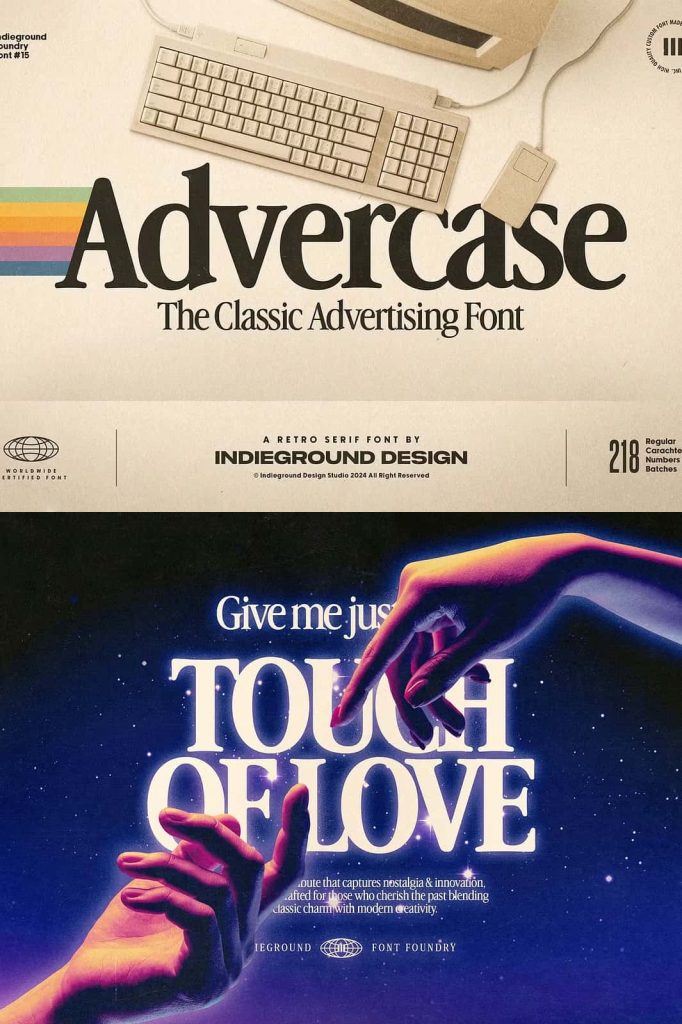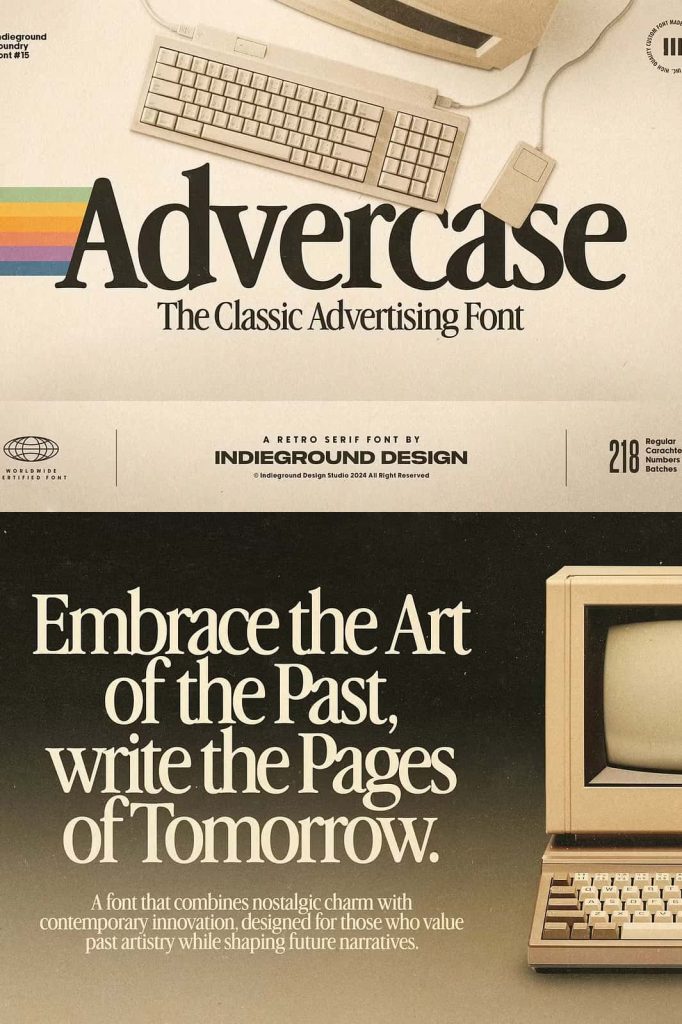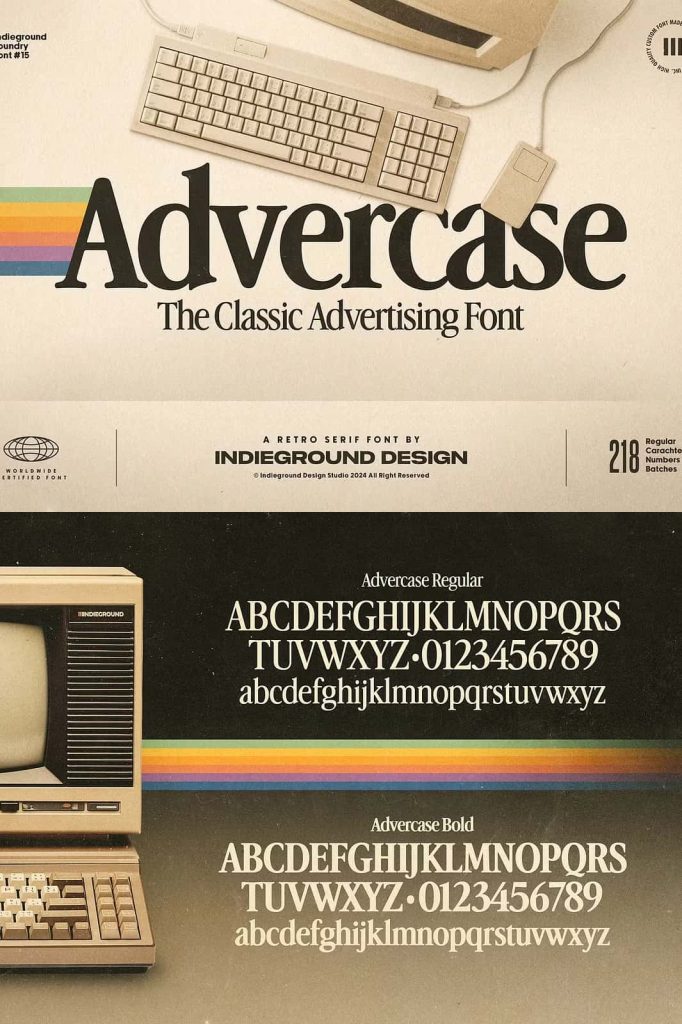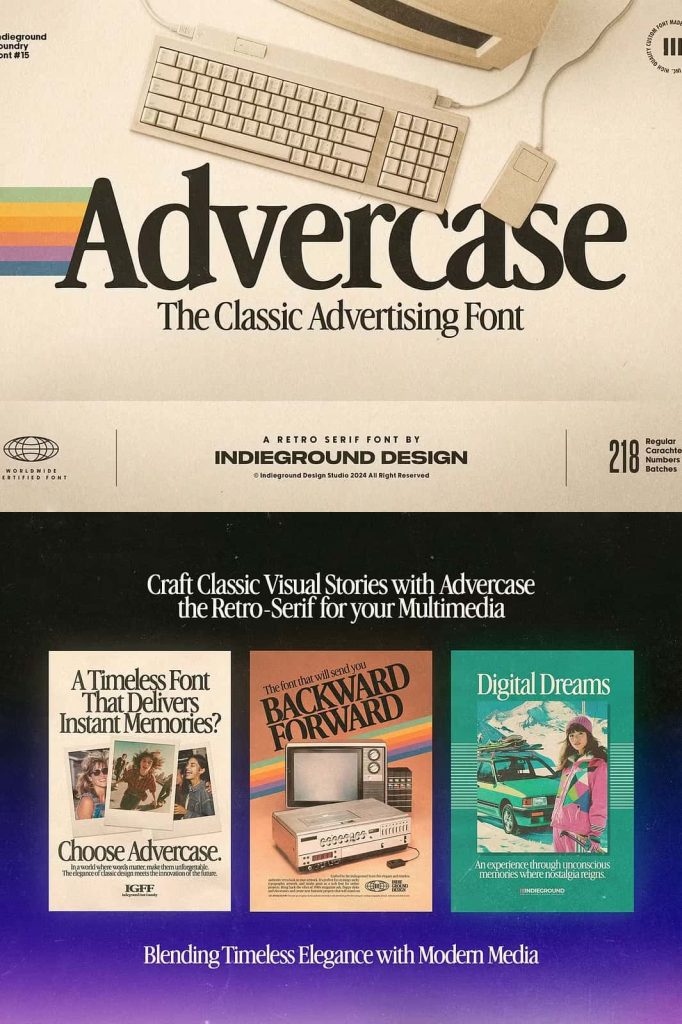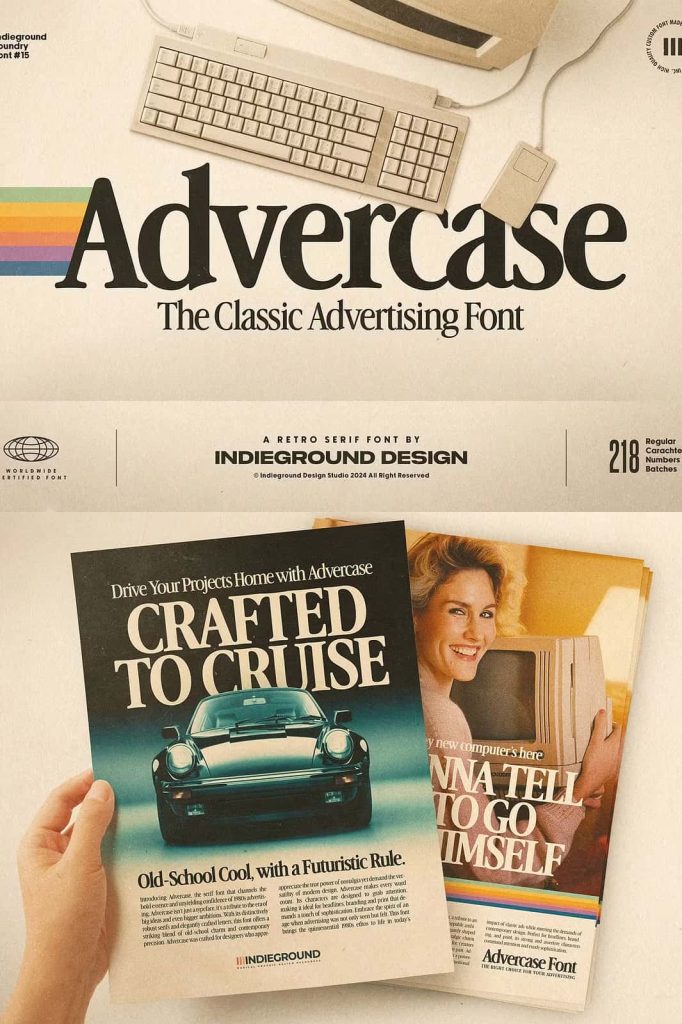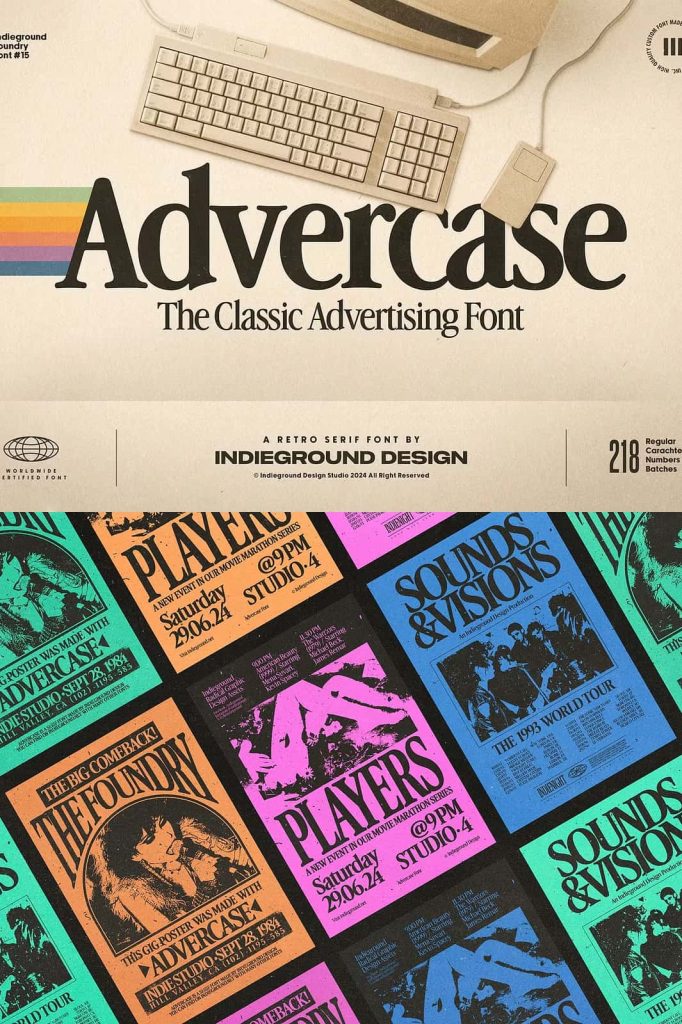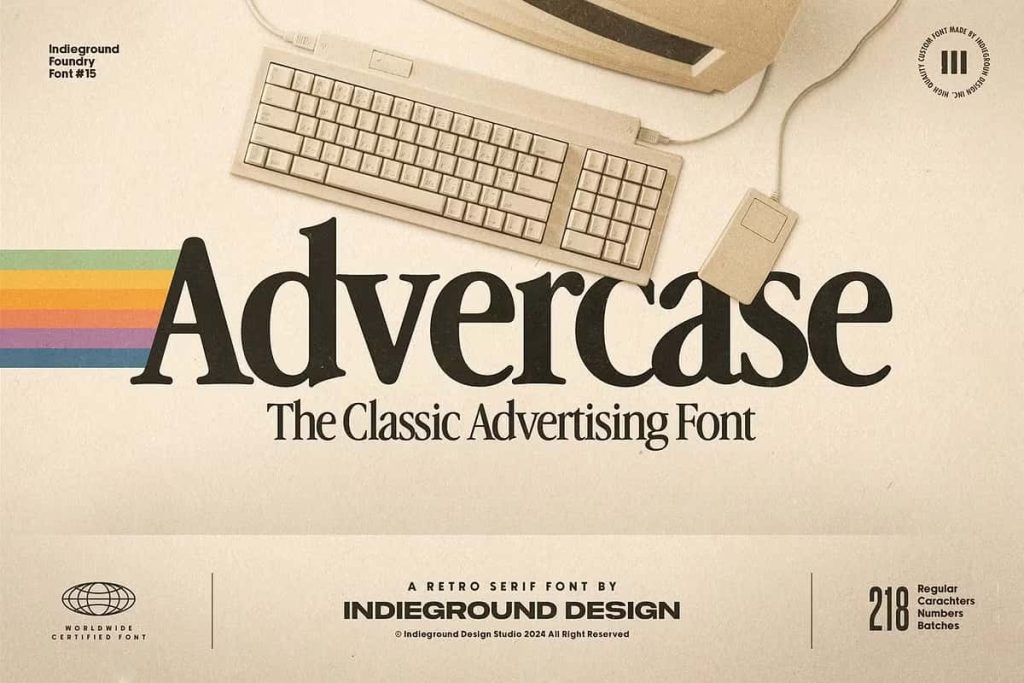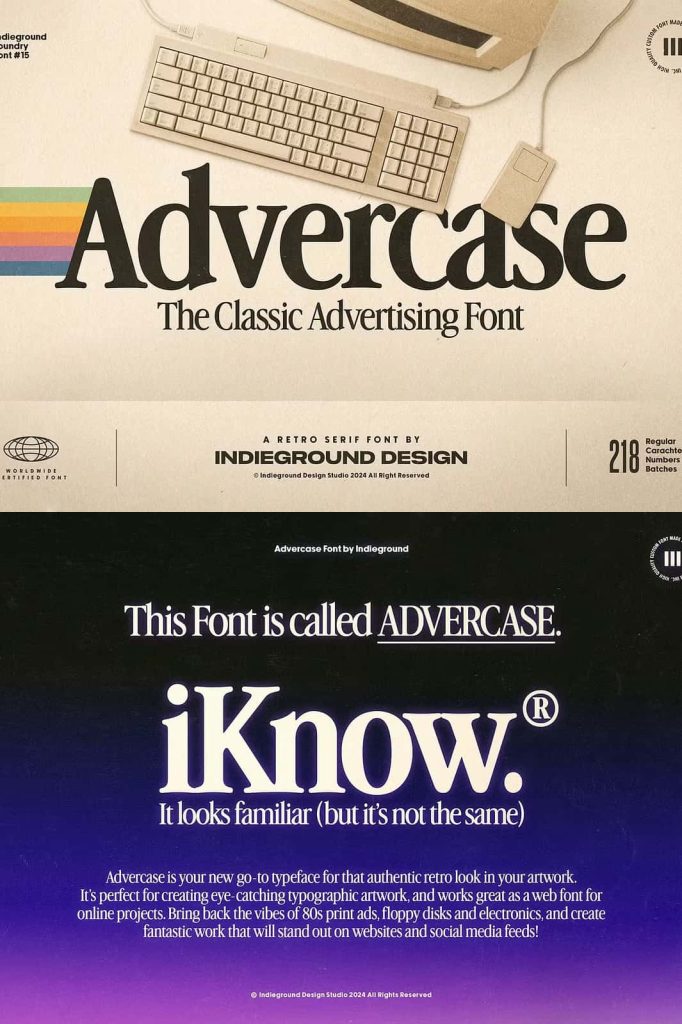
Advercase Font by Indieground This elegant font will bring back the classic atmospheres of vintage ads and old personal computers! Advercase is your new go-to font for that authentic retro look in your artwork. It’s perfect for creating eye-catching typographic artwork, and works great as a web font for online projects.